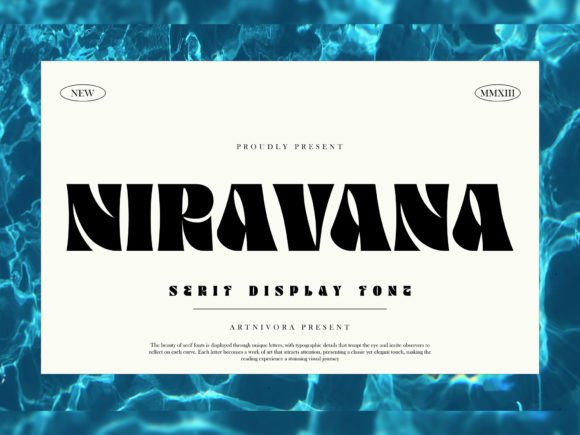
Dive into the realm of Niravana Font, a serif font family that dances with waves, whimsy, and unique shapes. A style that dances with vivacity and distinction, Niravana Font is the perfect partner for headlines that demand attention. Its whimsical waves and uniquely shaped characters create a visual symphony that will leave your audience captivated. Watch as your words take on a life of their own, leaving an indelible mark on your readers.
Niravana Font is more than just a digital creation; it's an experience. Its fluid lines and delicate details evoke a sense of playful sophistication that will elevate your designs to new heights. This font is not merely a tool; it's an instrument of expression, inviting you to unleash your creativity and make a statement. With Niravana Font, the ordinary becomes extraordinary, the mundane transforms into captivating.
Crafted by the skilled hands of artnivora.std, Niravana Font is a testament to the power of imagination and the art of typography. Its whimsical personality and captivating style make it the ideal choice for designers seeking to make a bold impact. Whether you're crafting logos, posters, or social media graphics, Niravana Font will add a touch of charm and sophistication that will leave your audience spellbound.
Embrace the magic of Niravana Font and embark on a creative journey that will redefine your perception of typography. Let your words dance with delight, your designs sing with joy, and your creations capture the hearts of all who behold them. Niravana Font is not just a font; it's an invitation to greatness, a key to unlocking the boundless potential of your imagination.